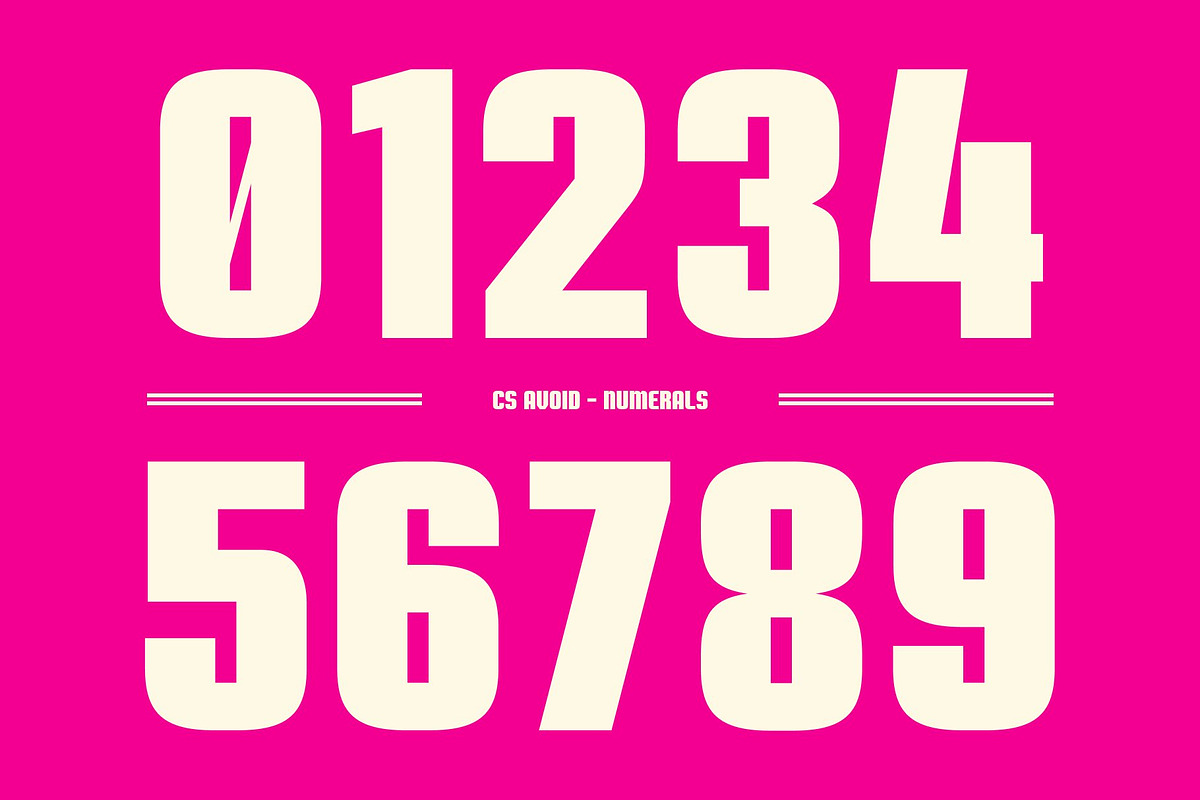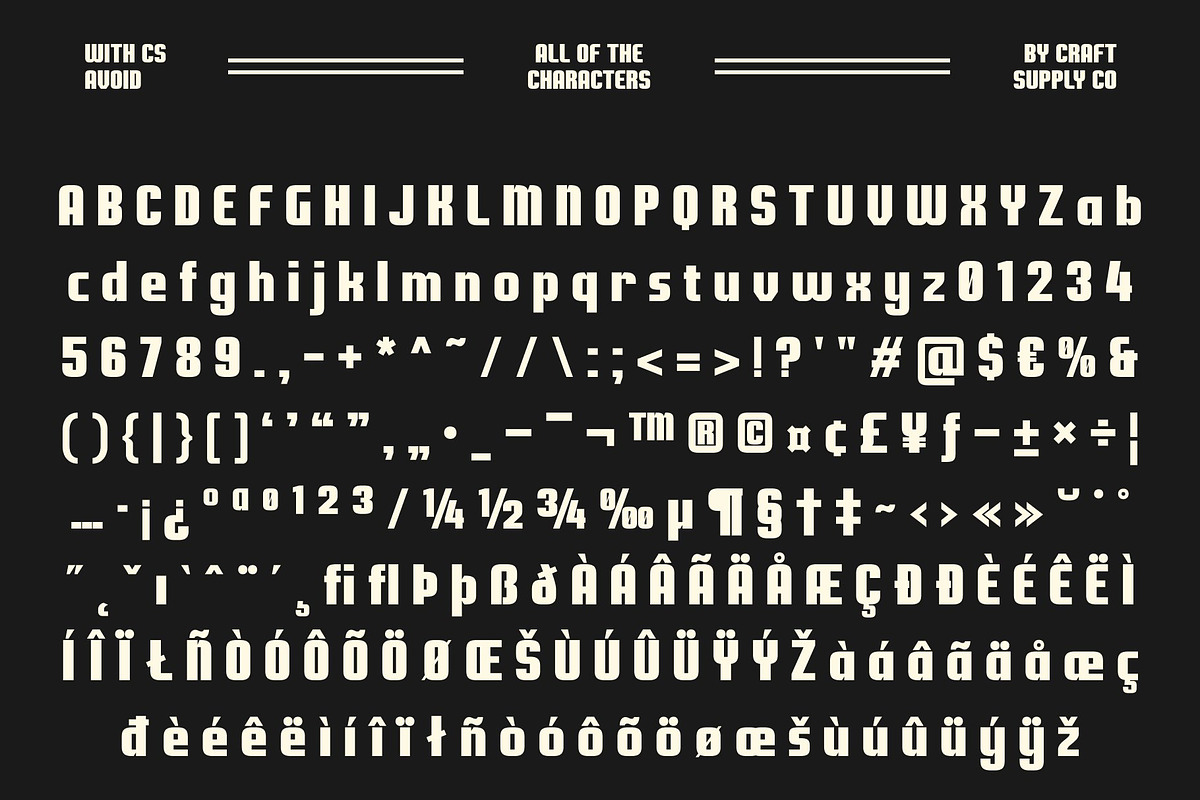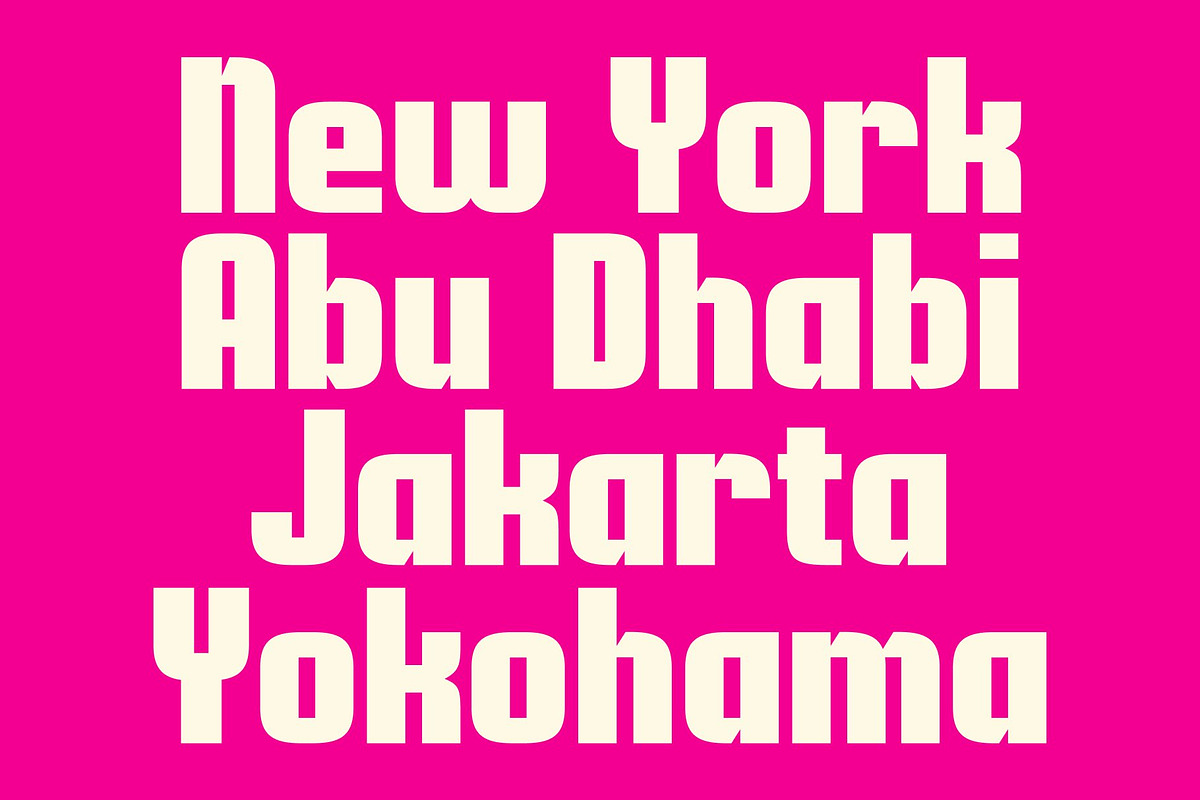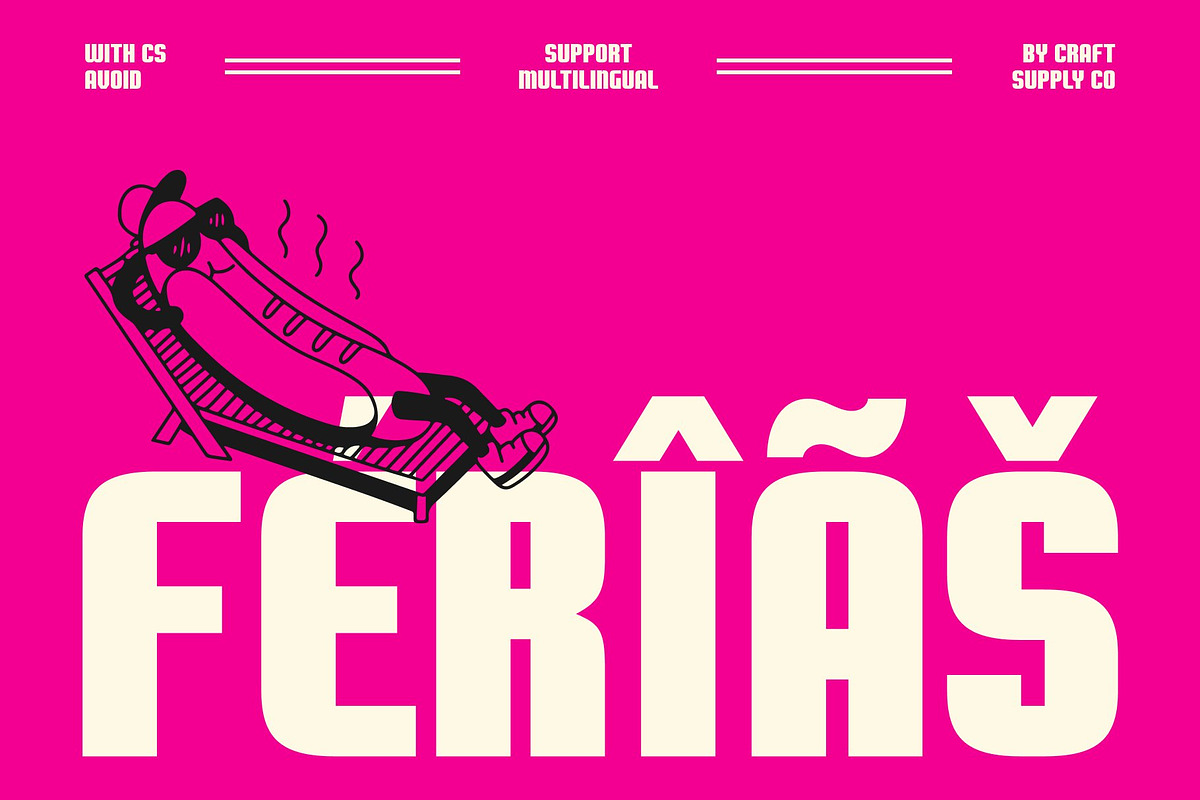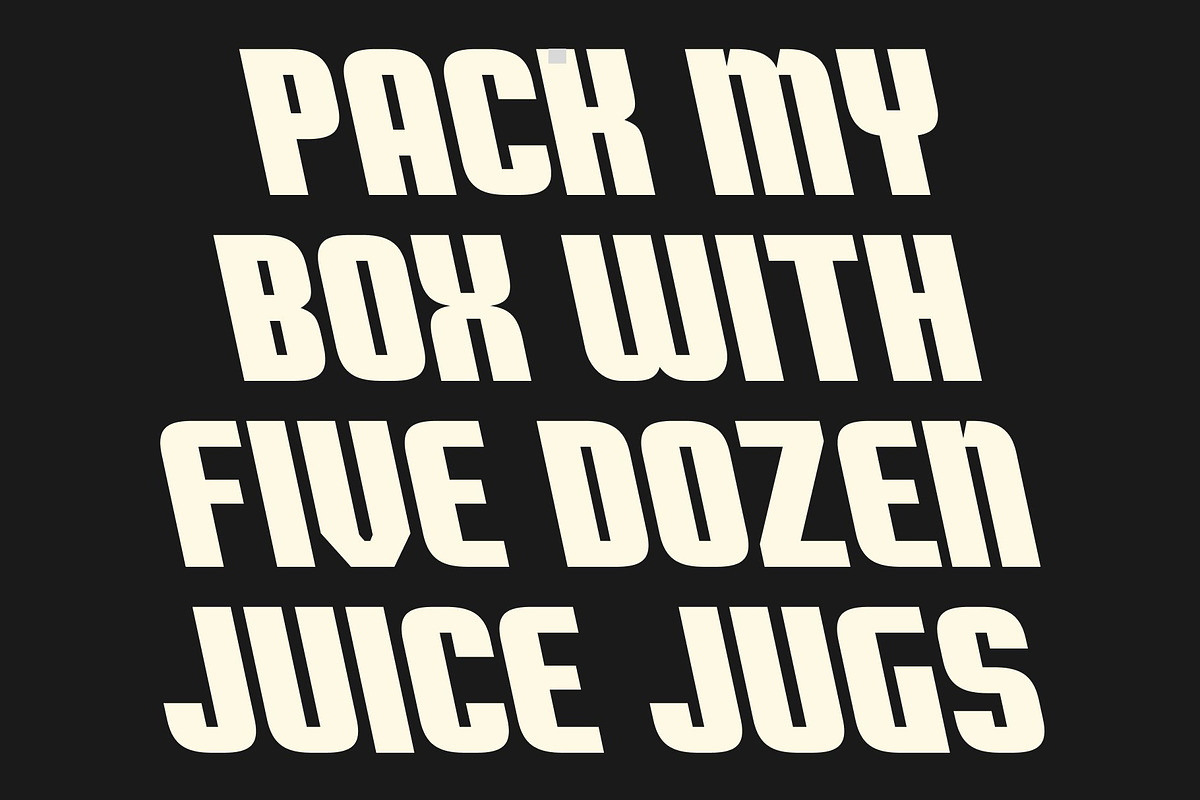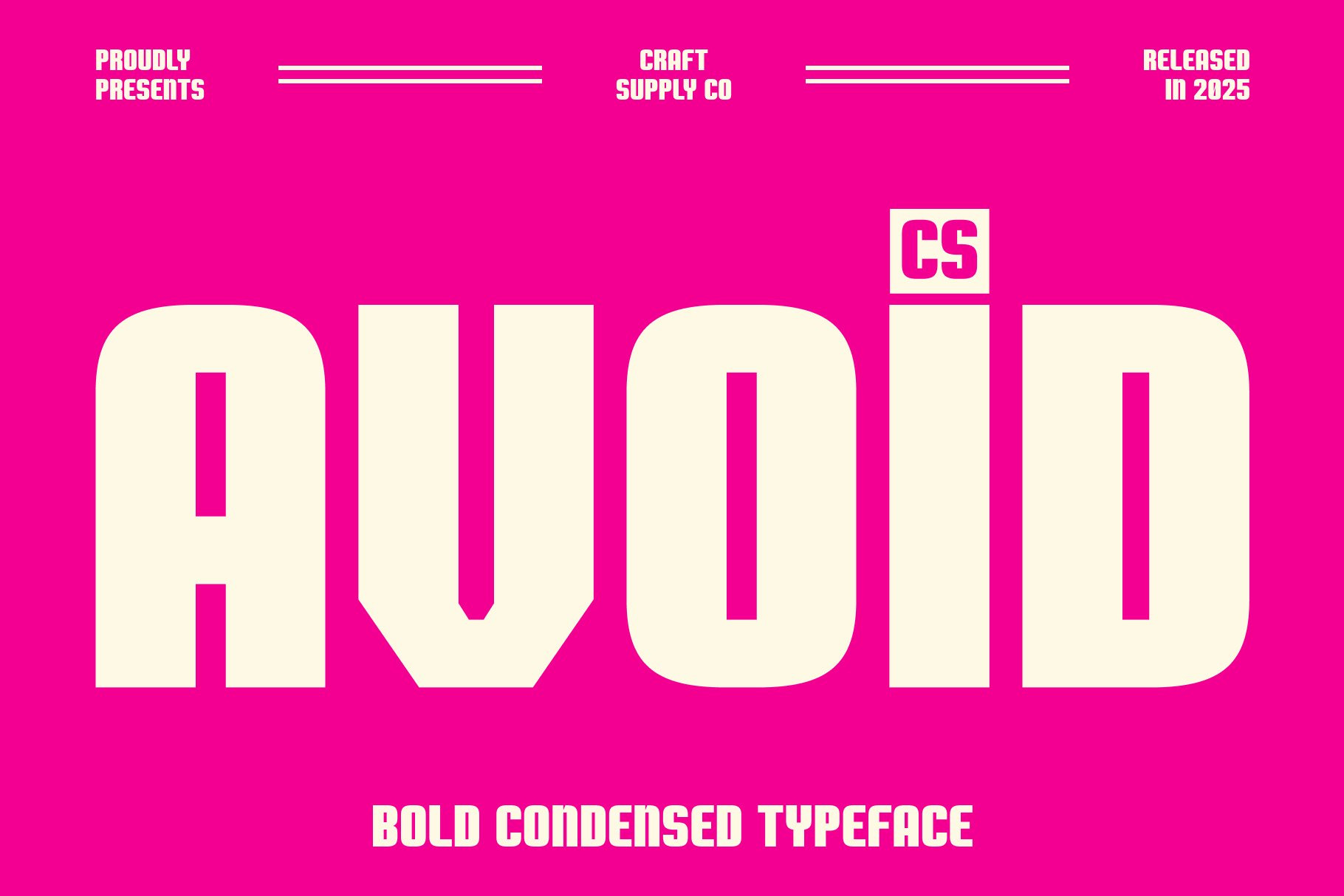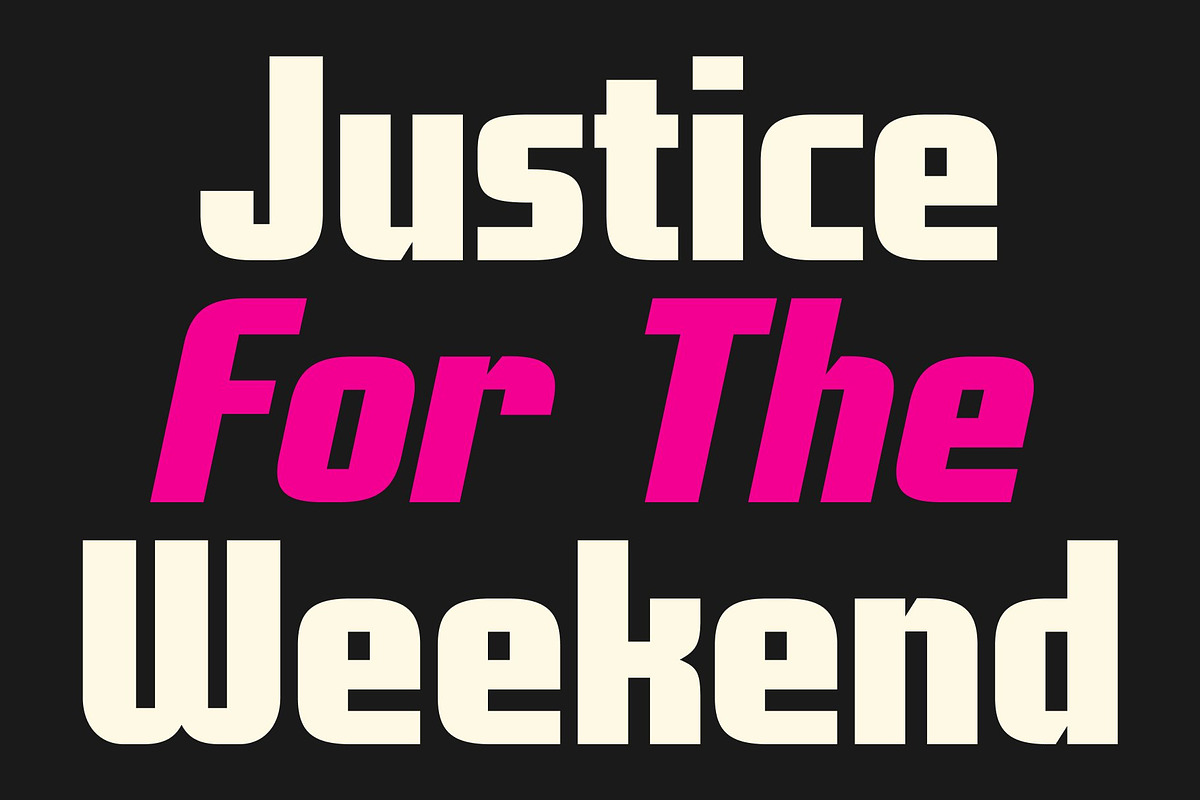
CS Avoid – Condensed Font
CS Avoid – Condensed Sans Serif Font: Maximum Impact, Minimal Space
Condensed Sans Serif with Modern Strength This is a compact and modern condensed sans serif font built to deliver strong visual impact where space is limited. With its narrow proportions and solid construction, this font communicates confidence, precision, and efficiency. Every letterform is designed to feel tight, controlled, and purposeful, making a powerful solution for contemporary display typography.
Powerful Presence in Tight Layouts Designed specifically for space-conscious designs, excels in headlines, banners, and layouts that demand clarity without sacrificing boldness. Its condensed structure allows more characters to fit comfortably in narrow areas while maintaining excellent readability. This makes it ideal for editorial headlines, posters, packaging, and branding systems that require strong messaging in compact formats.
Clean Geometry with Bold Readability This font balances clean lines with assertive weight, resulting in a modern aesthetic that feels both sharp and approachable. The sturdy strokes and consistent rhythm ensure legibility from a distance, while the minimal detailing keeps the design sleek and professional. This balance allows the font to feel bold without appearing heavy or cluttered.
Perfect for Modern Branding and Display Design Whether used for branding, advertising, posters, or digital visuals, delivers a confident and contemporary voice. Its compact form and strong presence make it especially effective for modern brands, urban designs, and visual identities that value efficiency, strength, and clarity.